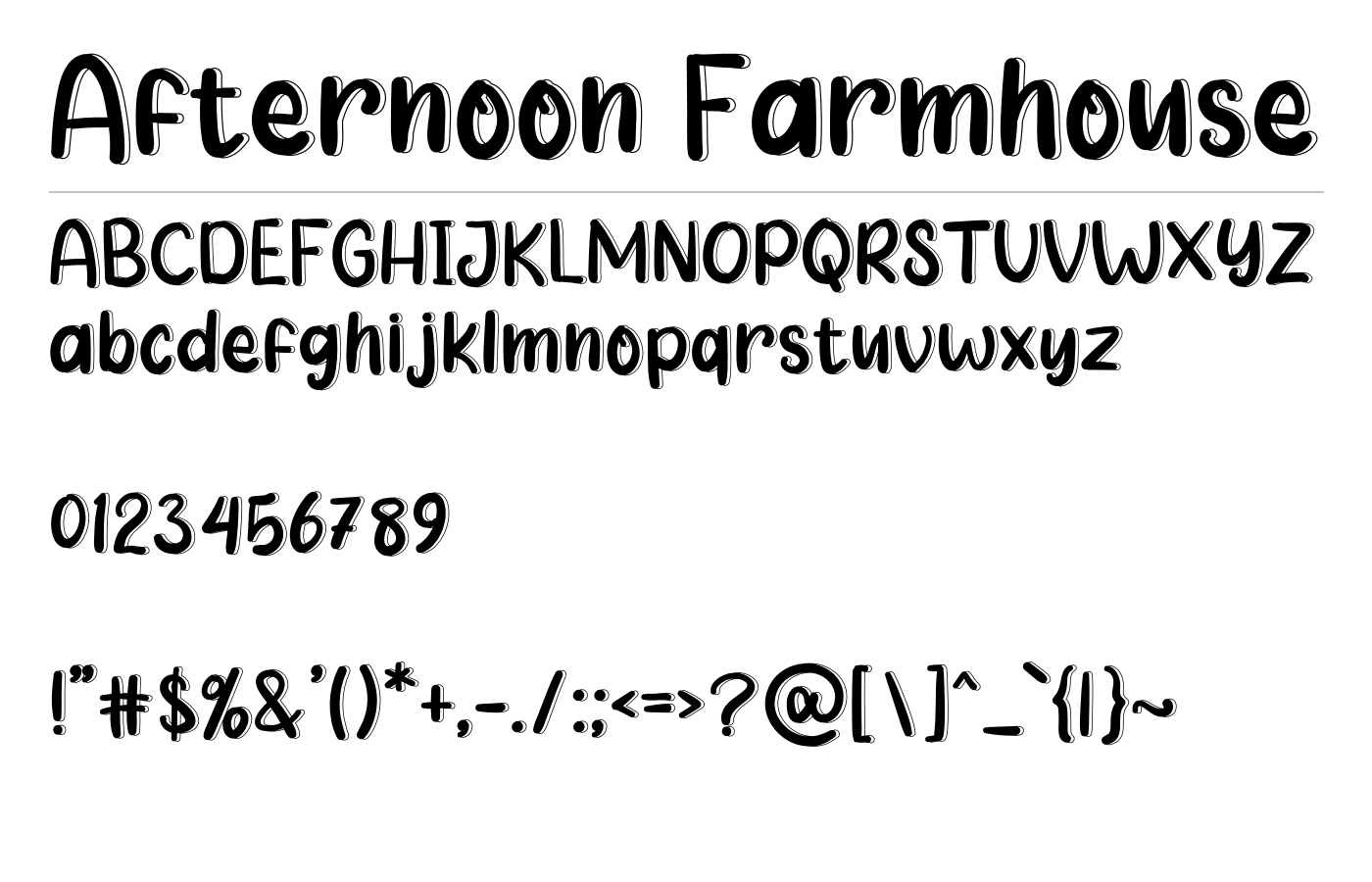
Afternoon Farmhouse is a playful, hand-drawn sans serif font with a bold weight and casual, slightly quirky letterforms. Its rounded edges and uneven strokes give it a friendly, approachable feel that works well for rustic branding, informal invitations, and fun packaging. This font shines in headline use where warmth and personality are key, making designs feel welcoming and creative.
Afternoon Farmhouse Font